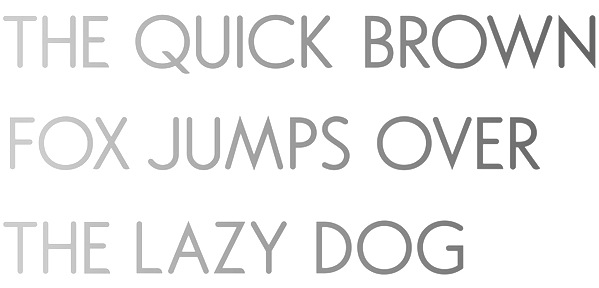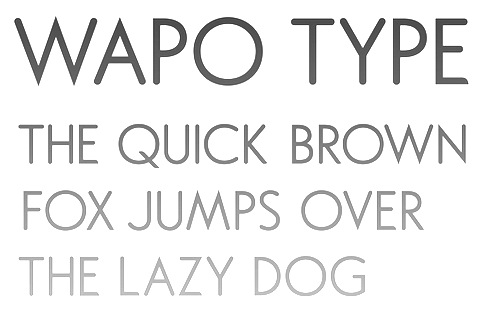
The Serbian type scene |
Graphic designer from Belgrade. Typeface 206 (2011) is an ornamental caps face that pays homage to da Vinci's Vitruvian Man. [Google] [More] ⦿ | |
Bepa Fonts
| Danilo Segan added Cyrillic glyphs to Bitstream's Vera sans family, and created the Bepa family. Alternate URL. Apparently, they are now outdated, having been replaced by the DejaVu Sans and Serif families. He maintains the Cyrillic glyph set in DejaVu. The URW-CYR family contains cleaned-up and fixed Serbian glyphs---these are now outdated, since Valek Filipov has merged (and first improved) them back into upstream URW-CYR fonts available here. Danilo Segan also created Nova and Nova Light (2003-2004), an art deco Cyrillic unicase family. [Google] [More] ⦿ |
Designer at the Serbian studio TajFazon, located in Belgrade. He works with stunning colors and has made some display fonts, often in the fat counterless artsy style. These include AeroFrog (2010), Strawberry (2009), Letvica (2010), and DontGetCut (2009). Behance link. [Google] [More] ⦿ | |
Illustrator and graphic designer in Belgrade. Behance link. Creator of the free brush face Berliner Mauer Ost (2010). [Google] [More] ⦿ | |
Ranko Tomic's Serbian page: "Cyrillic alphabet on computers and internet, free cyrillic fonts and programs." [Google] [More] ⦿ | |
Criovision is a visual identity company. Over at Dafont, one can download Criovision (2010), a futuristic all caps typeface. Their offices are in Lima, Peru and Paracin, Serbia. [Google] [More] ⦿ | |
Yugoslav designer of 32 Pages, a smudged dot font. [Google] [More] ⦿ | |
DejaVu Fonts
| The DejaVu fonts form an open source font family based on the Bitstream Vera Fonts. Free download. Its purpose is to provide a wider range of characters (see Current status page for more information) while maintaining the original look and feel through the process of collaborative development. Included are DejaVuSans-Bold, DejaVuSans-BoldOblique, DejaVuSans-Oblique, DejaVuSans, DejaVuSansCondensed-Bold, DejaVuSansCondensed-BoldOblique, DejaVuSansCondensed-Oblique, DejaVuSansCondensed, DejaVuSansMono-BoldOb, DejaVuSansMono-Oblique, DejaVuSansMono-Roman, DejaVuSerif-Bold, DejaVuSerif-BoldOblique, DejaVuSerif-Roman, DejaVuSerifCondensed-Bold, DejaVuSerifCondensed-BoldOblique, DejaVuSerifCondensed-Oblique, DejaVuSerifCondensed. Authors and contributors comprise Adrian Schroeter, Ben Laenen, Dafydd Harries, Danilo Segan (Cyrillic), David Jez, David Lawrence Ramsey, Denis Jacquerye, Dwayne Bailey, James Cloos, James Crippen, Keenan Pepper, Mashrab Kuvatov, Misu Moldovan (Romanian), Ognyan Kulev, Ondrej Koala Vacha, Peter Cernák, Sander Vesik, Stepán Roh (project manager; Polish), Tavmjong Bah, Valentin Stoykov, and Vasek Stodulka. The idea is to eventually cover most of unicode. Currently, this is covered: Latin (+supplement, extended A and part of extended B), IPA, Greek, Coptic, Cyrillic, Georgian, Armenian, Hebrew, N'ko, Tifinagh, Lao, Canadian aboriginal syllabics, Ogham, Arabic, math symbols, arrows, Braille, chess, and many dingbats. Alternate download site. Wiki page with download information. Fontspace link. [Google] [More] ⦿ |
Belgrade-based graphic designer and graffiti artist, b. 1985. Behance link. Creator of the free fat counterless font Branko Kockica (2010). He also made Blokada (2010). Dafont link. [Google] [More] ⦿ | |
Dino Art Corporation | Cyrillic fonts by the Dino Art Corporation, dating from 1993, include Cirilica60, Cirilica80, AmericanUncialCirilica, ArabiaCirilica, AardvarkCirilicaBold, AardvarkCirilica, ArialCirilicaBold, ArialCirilicaItalic, Arial-Cirilica, ArialCirilicaBoldItalic, AristonCirilicaBoldItalic, AtletaCirilica, BahamasCirilica, BangkokCirilicaBold, BangkokCirilica, BedrockCirilica, BekerCirilicaBold, BodoniCirilicaItalic, BodoniCirilica, BodoniRomanCirilica, BodoniCirilicaBoldItalic, BookCirilicaBold, BookCirilicaItalic, BookCirilica, BookCirilicaBoldItalic, BremenCirilica, BroadwayCirilica, BrushScriptCirilica, CaligraphCirilica, CenturyCirilicaItalic, CenturyCirilica, CzarCirilicaBold, CzarCirilicaItalic, CzarCirilica, CzarCirilicaBoldItalic, GoliatCirilicaBold, Goliat-Cirilica, HelveticaCirilicaBold, HelveticaCirilicaItalic, HelveticaCirilica, HelveticaCirilicaBoldItalic, HippoCirilicaBold, Madrone-Cirilica, MemorandumCirilica, Miroslavljeva-Cirilica, MurmanskCirilica, OdessaScriptCirilica, RenfrewCirilica, SouthernCirilicaItalic, Southern-Cirilica, TimesCirilicaBold, TimesCirilicaItalic, Times-Cirilica, TimesRomanCirilicaItalic, TimesRomanCirilica, TimesRomanCirilicaBoldItalic, TimesCirilicaBoldItalic, UnicornCirilica. They can be downloaded at the site of the Serbian Orthodox Church. Some are also here. [Google] [More] ⦿ |
Sombor, Serbia-based designer who has created an experimental font in 2010. Home page. [Google] [More] ⦿ | |
Djordje Zivkovic | Belgrade-based typographer, who designed FlahScript, Garamond, LepiScript, Manasija, Naisus, Ravanica and Traian. These fonts were digitized by Zoran Kostic. [Google] [More] ⦿ |
Dragan Milunovich | Designer of Old Serbian DM, which can be downloaded here. [Google] [More] ⦿ |
Foundry in Serbia, est. 2011. Fontex created Brillian (2011), a large Latin/Cyrillic semi-connected script family, characterized by two gigantic b counters. Boos (2012) is a casual typeface family. [Google] [MyFonts] [More] ⦿ | |
Hana is a graphic designer from Belgrade. She made a nice typographic poster called Neandertal (2010). I guess that this goes with her simplistic and almost constructivist squarish typeface Neandertal (2009). She also created Kuka (2010), a simple display sans with both Latin and Cyrillic alphabets. [Google] [More] ⦿ | |
Ivana Dakic | Serbia/Montenegro-based type designer who received a TypeArt 05 award for the display face Jedrilica. [Google] [More] ⦿ |
Serbian designer of the calligraphic Latin/Cyrillic script Tapija. [Google] [More] ⦿ | |
Jablantile
| Jablantile (2009) is a small Metafont font created by Don Knuth to implement the modular tiles described by Slavik Jablan, a mathematics profeesor at Matematicki Institut SANU, Belgrade. [Google] [More] ⦿ |
Serbian student at Belgrade's Faculty of Applied Arts. Designer of the experimental sans face Relogio (2006). [Google] [More] ⦿ | |
Novi Sad, Serbia-based typographer, graffiti artist and graphic designer. [Google] [More] ⦿ | |
Zrenjanin-based Yugoslav designer (b. 1986) of Milkman Conspiracy (2006, brush script), Anime Eyes (2006) and A Lolita Scorned (2006). Home page. Dafont link. [Google] [More] ⦿ | |
At ATypI 2004 in Prague, he spoke about typefaces for Latin and Cyrillic. View Jovica Veljovic's typefaces. [Google] [MyFonts] [More] ⦿ | |
KODEKS
FontShop link. Via MacCampus, which he seems to run, he published Breitkopf Fraktur (2008, with Sascha Selke) and Trubetzkoy (2005, a serif face for phonetics). [Google] [More] ⦿ |
Serbian font archive: ArialCirilicaBold, Bodoni-CirilBold, Franklin-GothicCirilHeavy, Garamond-Ciril, Helvetica-CirilNarrowBold, Helvetica-CirilNarrowBoldItalic, CBlippoItalic, CFuturNormal, Cir_Bodoni-Normal, CYRevueR, CyrillicTimes, CYSwissR, CYSwissB, CirTimesBld, CirTimes, Futura_Cyrillic_Black-Normal, MetodaCiril, MiroslavljevoY, Miroslavljevo, Mirosavljevo-Normal, MiroslavCirLight, OldSerbianDM, Studenica-Regular, YUAachenB, YUArnoldBckln, YUBitsAmerigoR, YUBaskervilB, YUBaskervilBI, YUBaskervilR, YUBitsCharterI, YUBitsCharterK, YUBitsCharterKHollow, YUBitsCharterKI, YUBitsCharterR, YUBitsCooperK, YUBitsCooperKHollow, YUBenguiatB, YUBenguiatR, YUBlippoKHollow, YUBodoniB, YUBodoniBI, YUBodoniO, YUBodoniOI, YUBrushScriptI, YUBroadwayR, YUBroadwayRHollow, YUCheltenhamB, YUCheltenhamBI, YUCheltenhamR, YUClarendonB, YUClarendonR, YUCloisterK, YUCaslonOpnFcR, YUCoronetB, CourierPSMT, CourierPS-BoldItalicMT, CourierPS-ItalicMT, YUCenSchbookB, YUCenSchbookBI, YUCenSchbookR, YUDomCasualR, YUDutchBIHHollow, YUDutchB, YUDutchBHollow, YUDutchBI, YUDutchR, YUErasB, YUErasK, YUErasKHollow, YUErasR, YUExoticBHollow, YUFrankGotB, YUFrankGotBI, YUFrankGotR, YUFrizQuadrataB, YUFrizQuadrataR, YUFuturaB, YUFuturaCondM, YUFuturaExtraK, YUFuturaExtraKHollow, YUFuturaH, YUFuturaHI, YUFuturaLI, YUFuturaOI, YUGoudyB, YUGoudyI, YUGoudyR, YUGoudyExtraB, YUHoboR, YUITCAvantGGBHollow, YUITCBookmanD, YUITCBookmanDI, YUITCBookmanL, YUITCBookmanLI, YUITCGarCondO, YUITCGarCondOI, YUITCGaramondB, YUITCGaramondBI, YUITCGaramondO, YUITCGaramondOI, YUITCKorExtraB, YUITCKorExtraBI, YUITCKorR, YUITCZChancMI, YUKaufmannB, YUKaufmannR, YULetterGot12B, YULetterGot12BI, YULetterGot12R, YuLHelvetica, YuLHelveticaBold, YULinoscriptR, YUMermaidR, YUMistralR, YUOptimaB, YUOptimaBHollow, YUOptimaBI, YUOptimaR, YUOratorR, YUPostAntiquaB, YUPostAntiquaR, YUParisianR, YUParkAvenueR, YUPicaR, YUPresntScrptR, YUPTBarnumR, YURevueRHollow, YUScriptR, YUSlateExtraB, YUSlateExtraBHollow, YUSlateMI, YUSouvenirB, YUSouvenirBI, YUSouvenirR, YUSwissCompRHollow, YuTimes.Italic, Helvetica, YuHelvetica, YURevueR, YUTimesNewRoman, YUTimesNewRomanBold, TimesYU, TimesYUBold, TimesYUBold-Italic, TimesYUItalic, YuTimes, YuTimes.Bold, YuTimes.BoldItalic, YuTimes.Italic, AmericanUncialCirilica, Arial-Cirilica, ArialCirilicaBold, ArialCirilicaBoldItalic, ArialCirilicaItalic, AristonCirilicaBoldItalic, AtletaCirilica, BahamasCirilica, BedrockCirilica, MemorandumCirilica, POLITIKANormal, Studenica-Regular, YUBlippoK, YUExoticB, YUExoticD, YUFuturaK, YUFuturaL, YUFuturaM, YUFuturaO, YUHandelGotR, YUITCAvantGGB, YUITCAvantGGD, YUITCAvantGGM, YUITCAvantGGO, YUITCBoltB, YUSlateM, YUSwissECompR, YUSwissB, YUSwissBI, YUSwissK, YuTimes, YuTimes.Bold. Many of the ones with YU in the name are from MiMac, Belgrade. [Google] [More] ⦿ | |